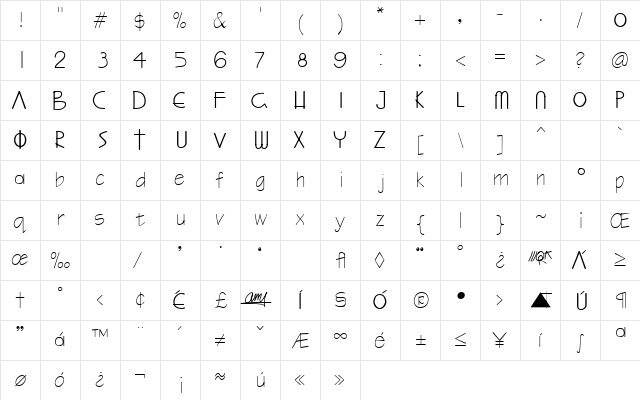
Benedictino Regular
Design Context for Benedictino Typeface
Benedictino takes a measured approach to typography — its balanced proportions and neutral character make it a reliable workhorse for both digital and print work.